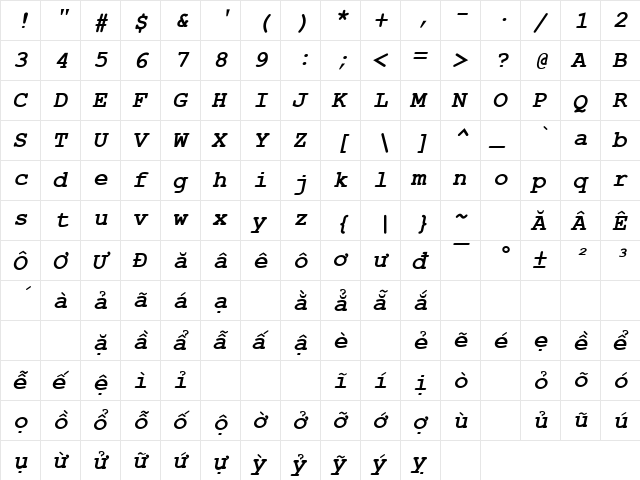
.VnCourier New Bold Italic Font Preview
Design Context for .VnCourier New Typeface
.VnCourier New uses fixed-width spacing throughout, giving it the structured, systematic character associated with coding environments and technical documentation. The slanted form adds forward momentum and visual energy. The heavy weight commands attention and anchors typographic hierarchies.
Well-suited to data-driven dashboards, coding tutorials, and any design that wants to reference the world of programming.
Pro Tip: Use .VnCourier New with slightly increased line-height for extended reading — fixed-width spacing can feel dense in longer passages without extra breathing room.